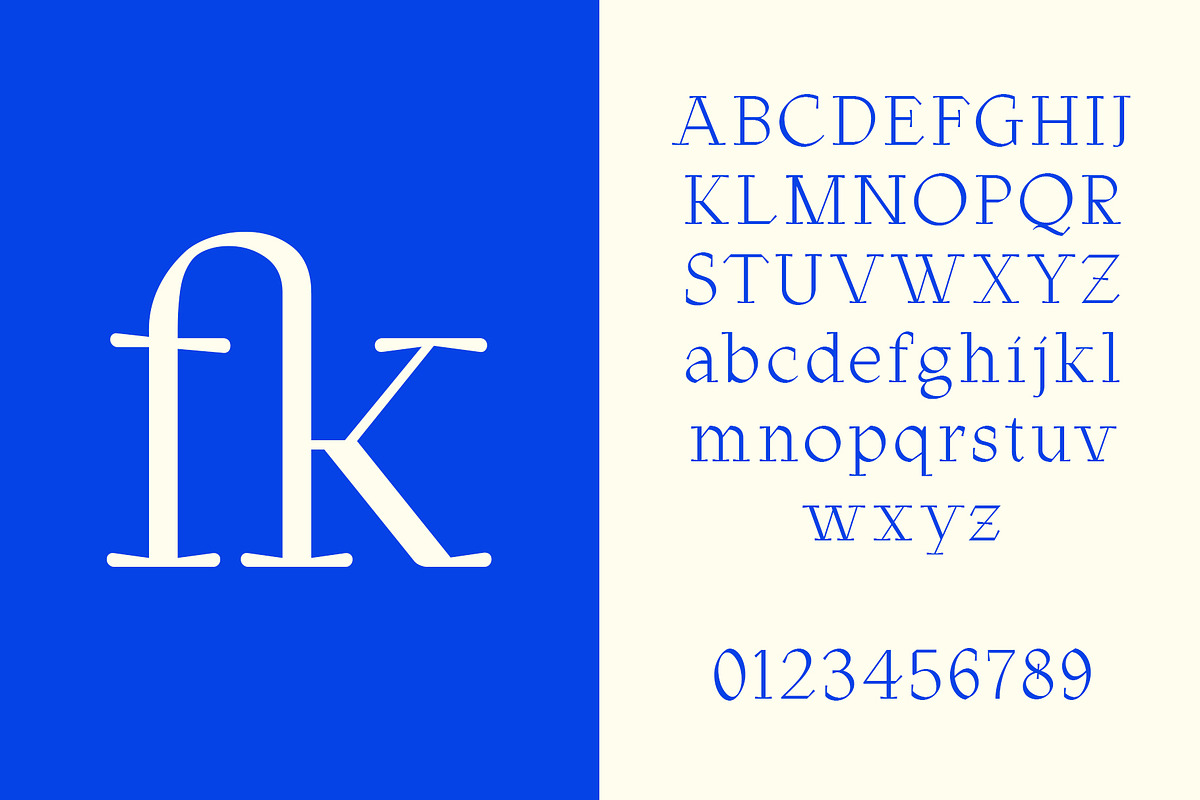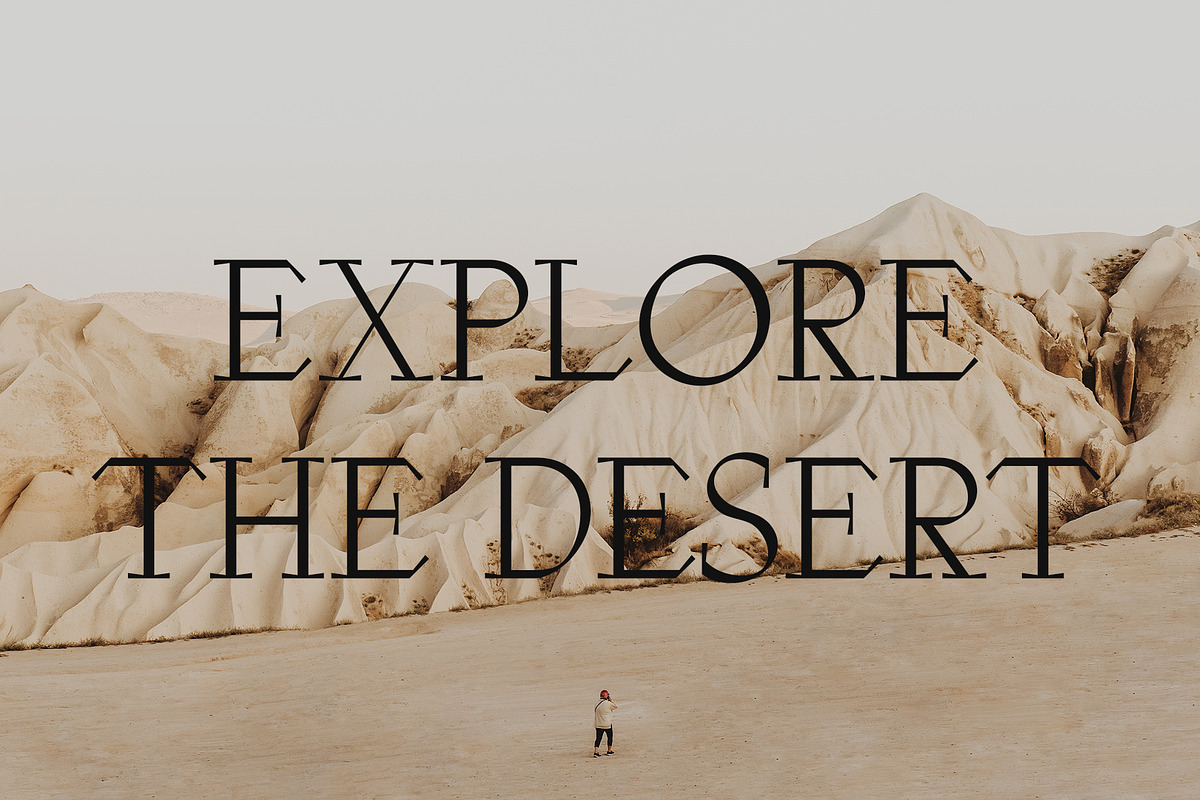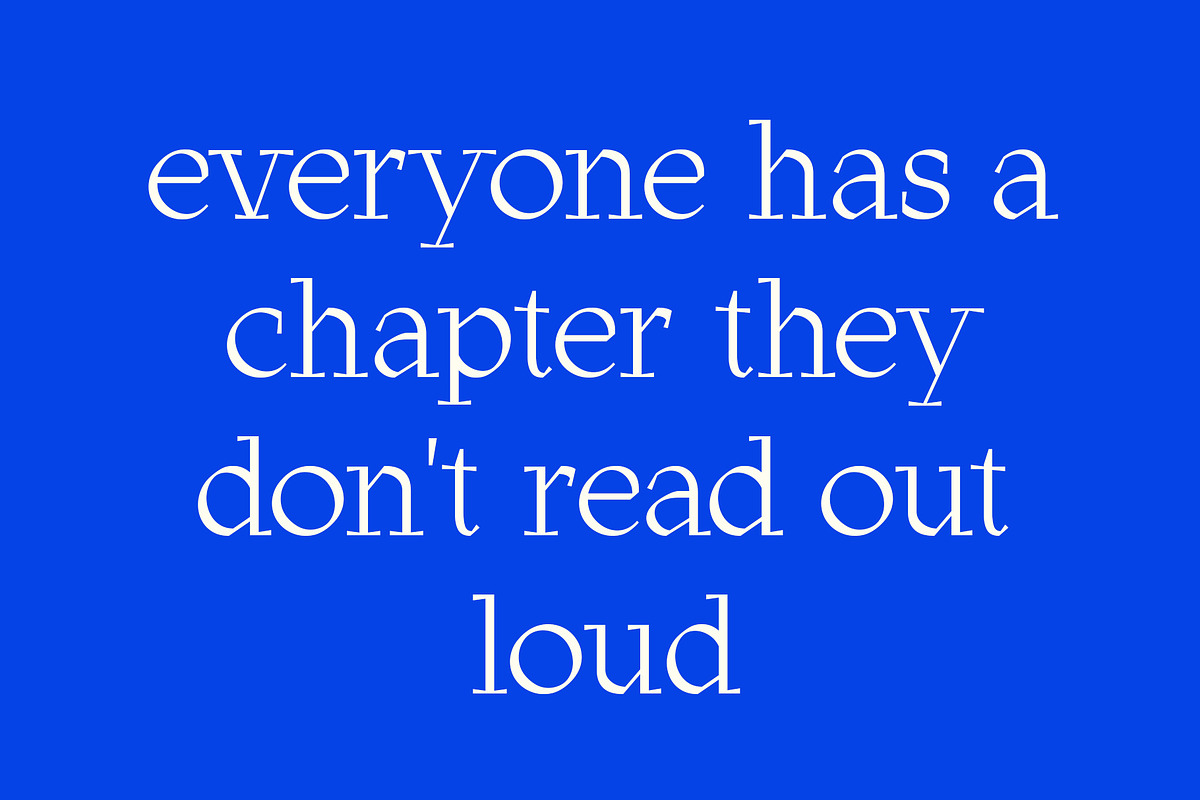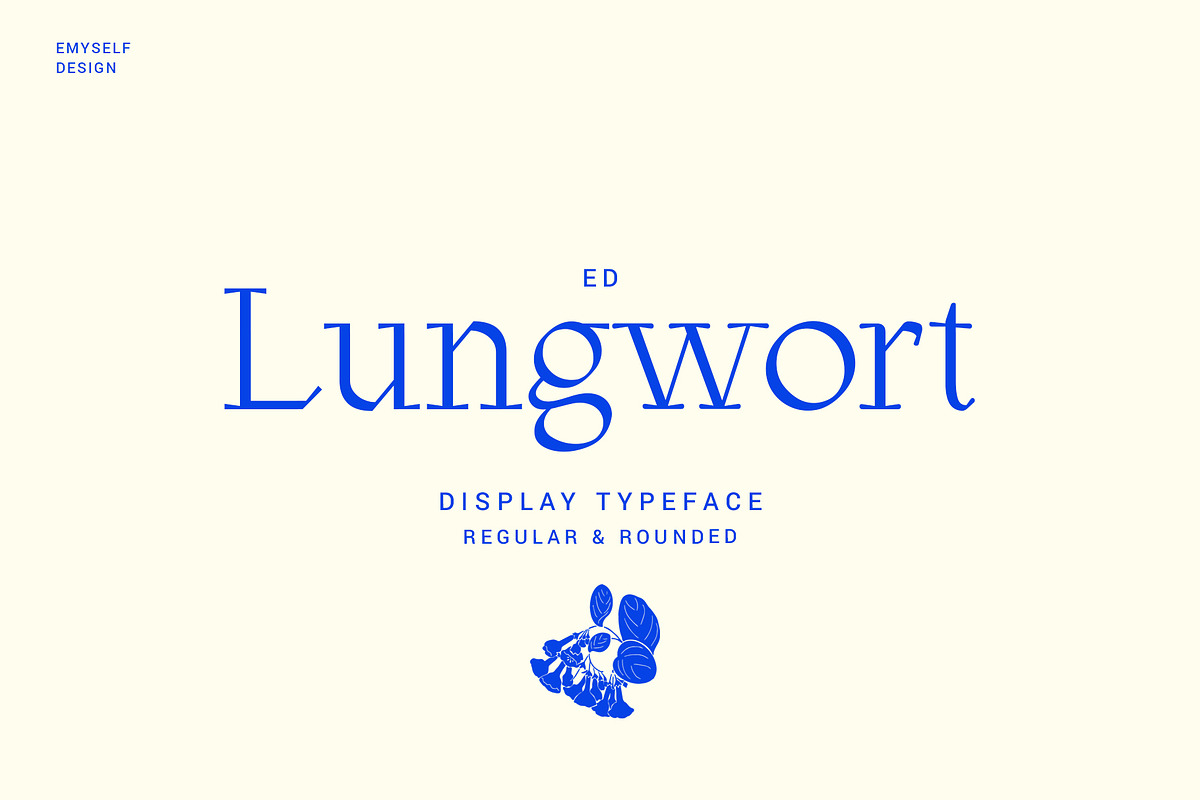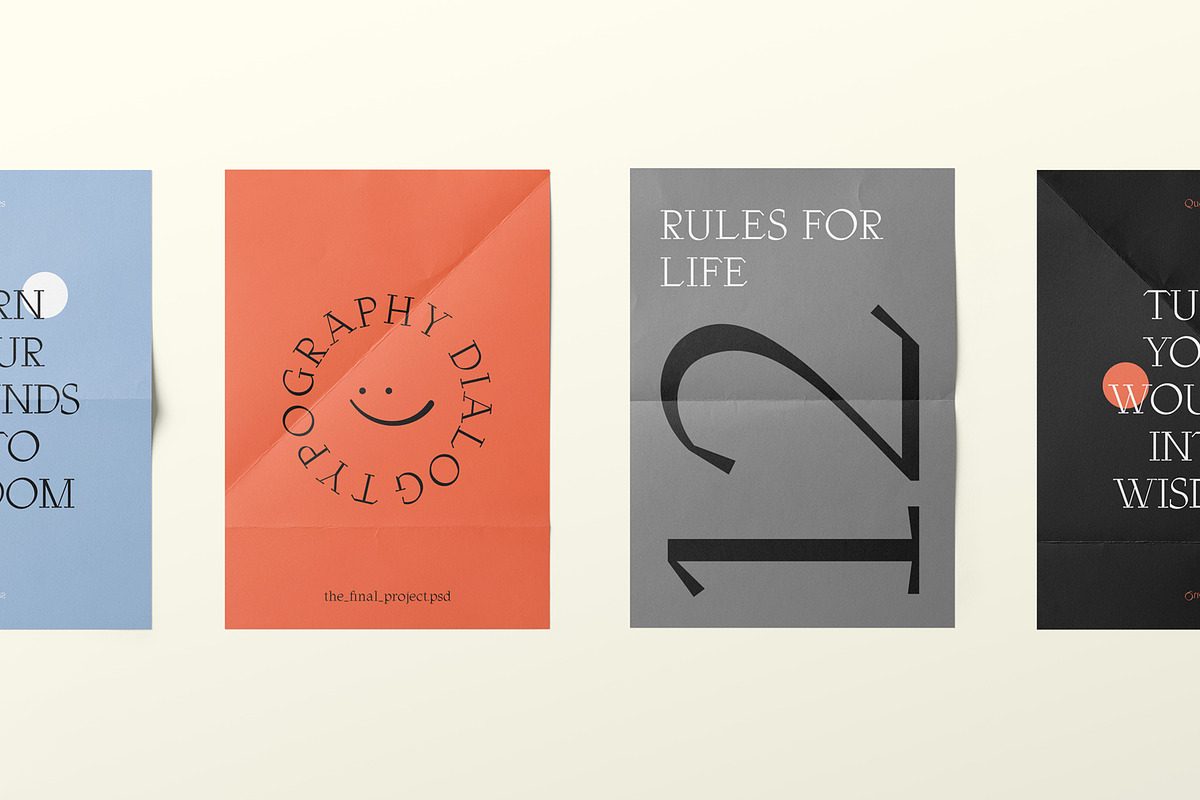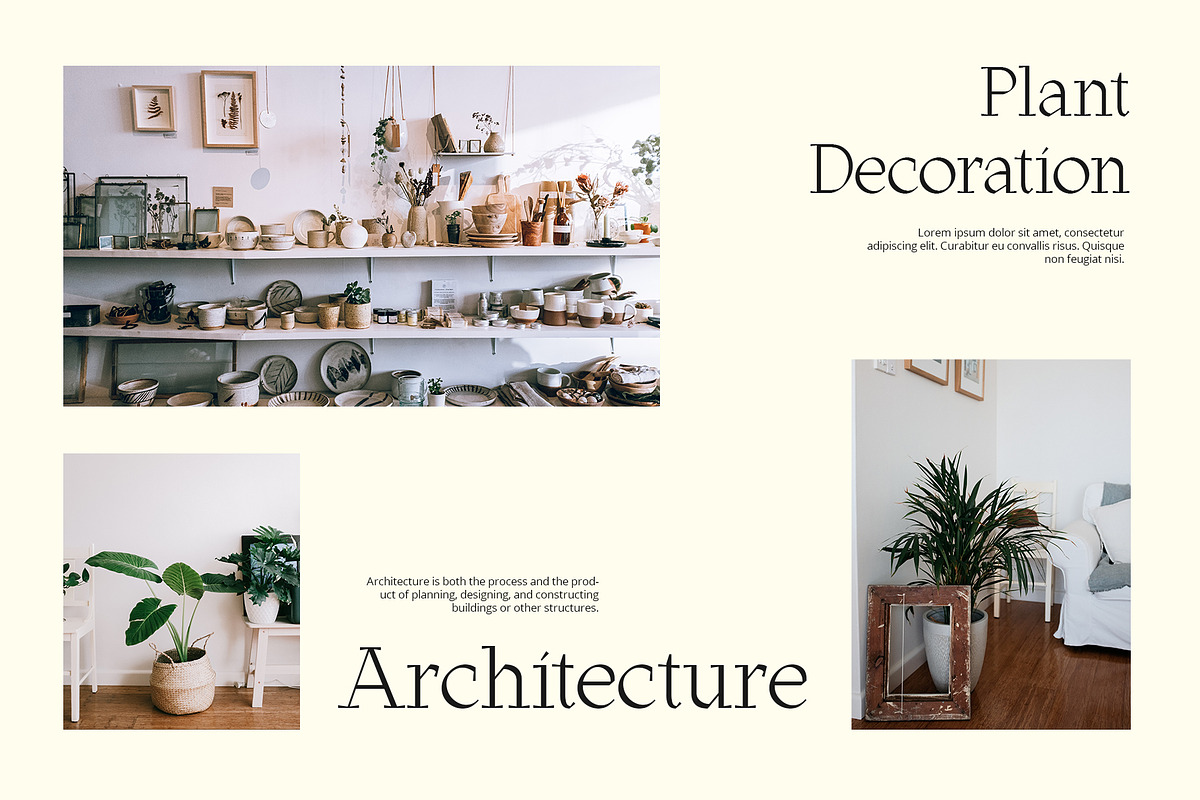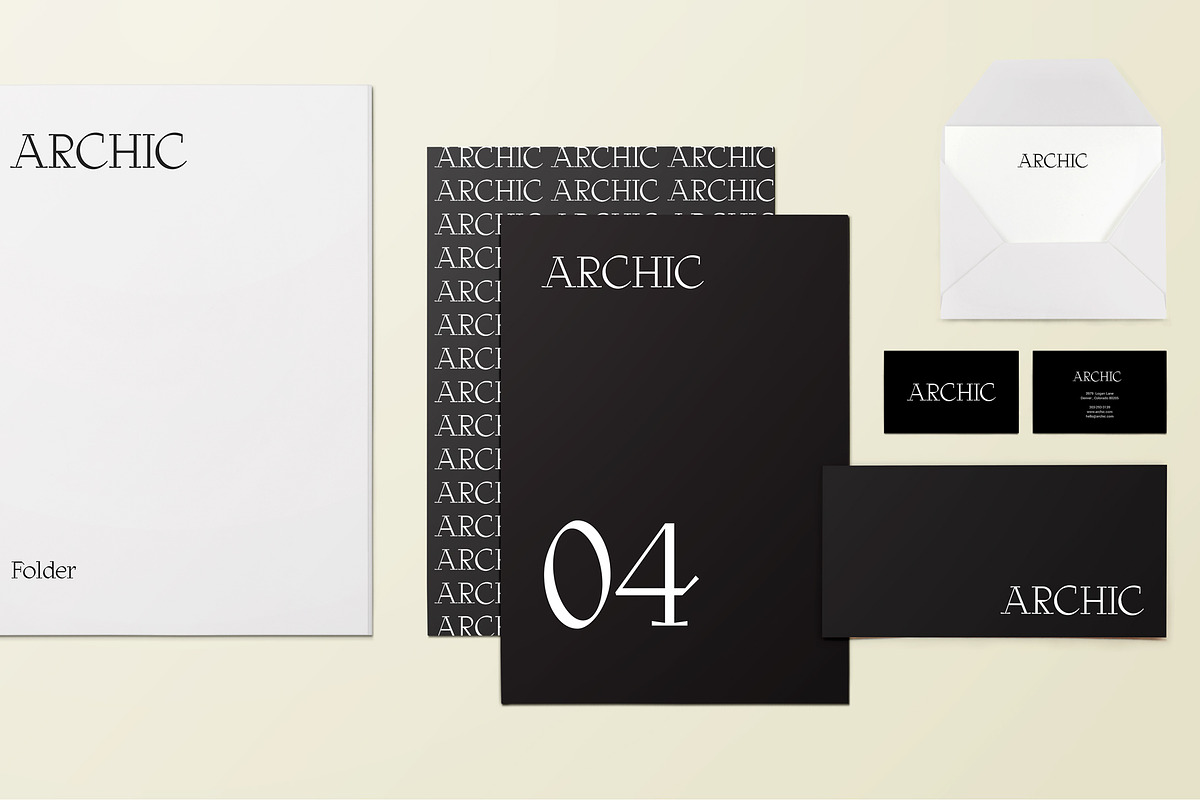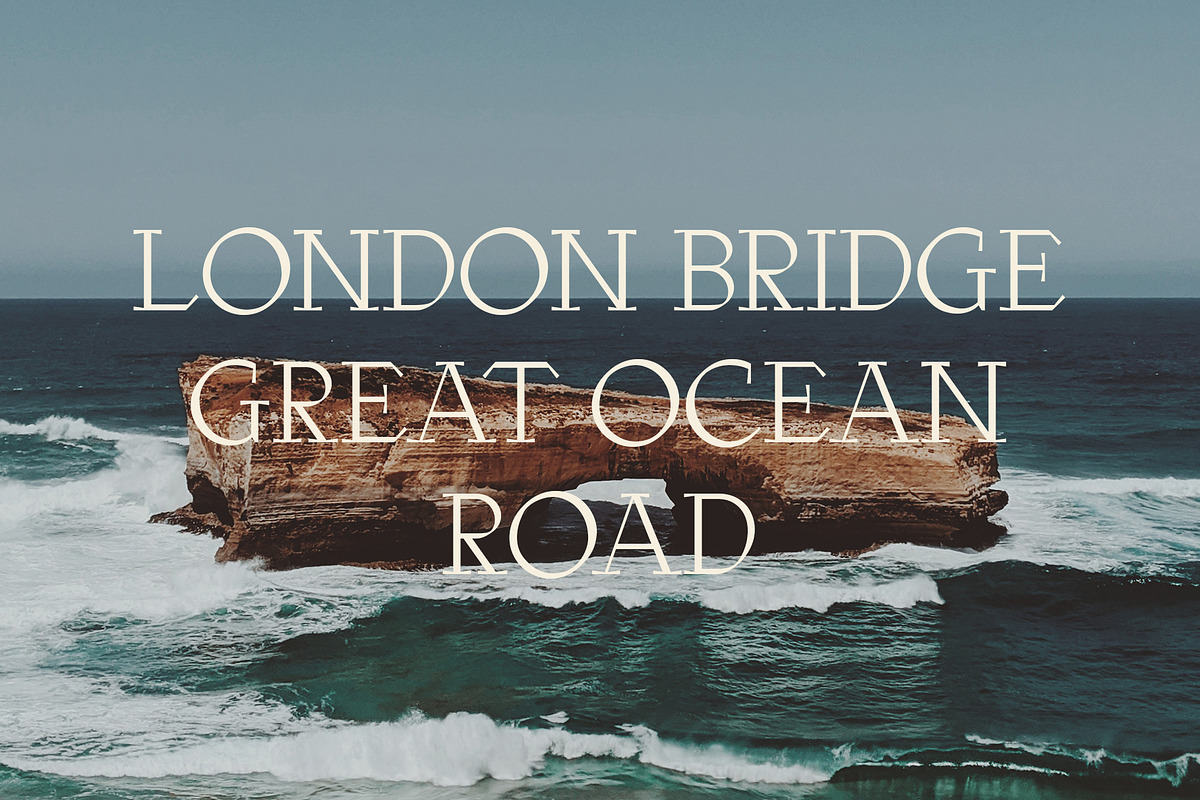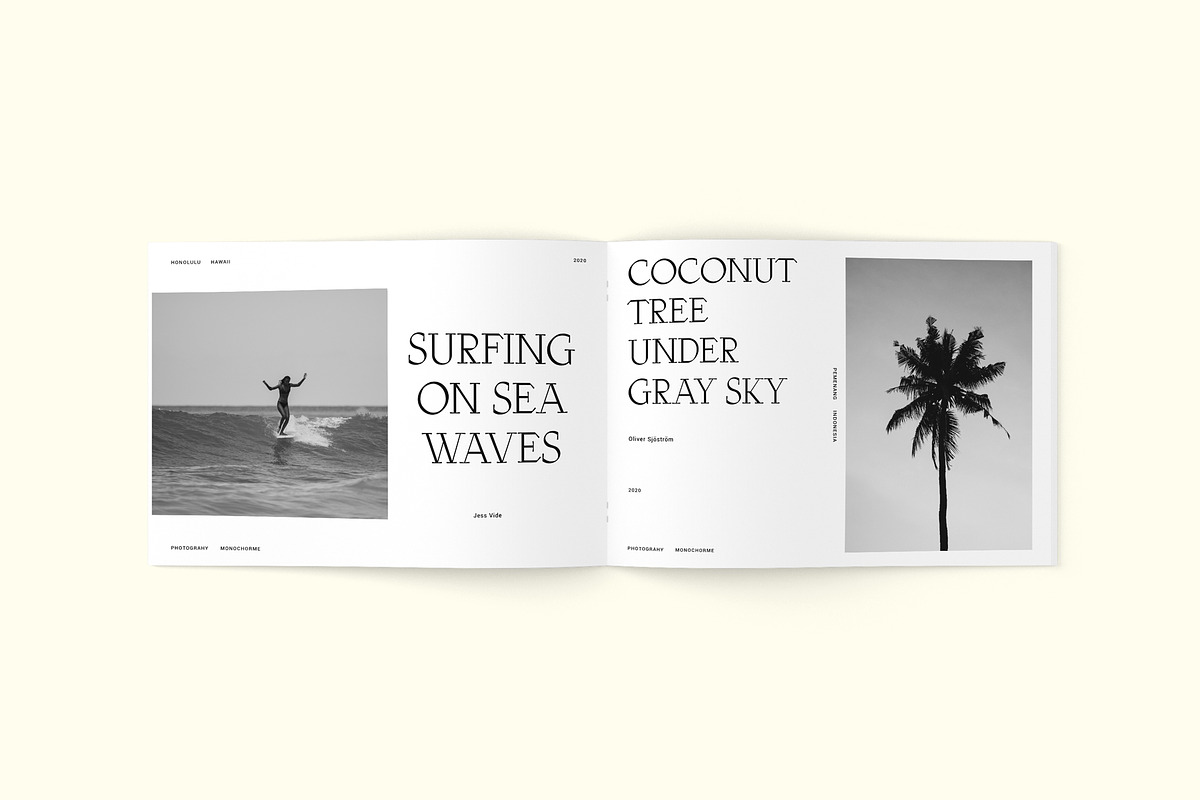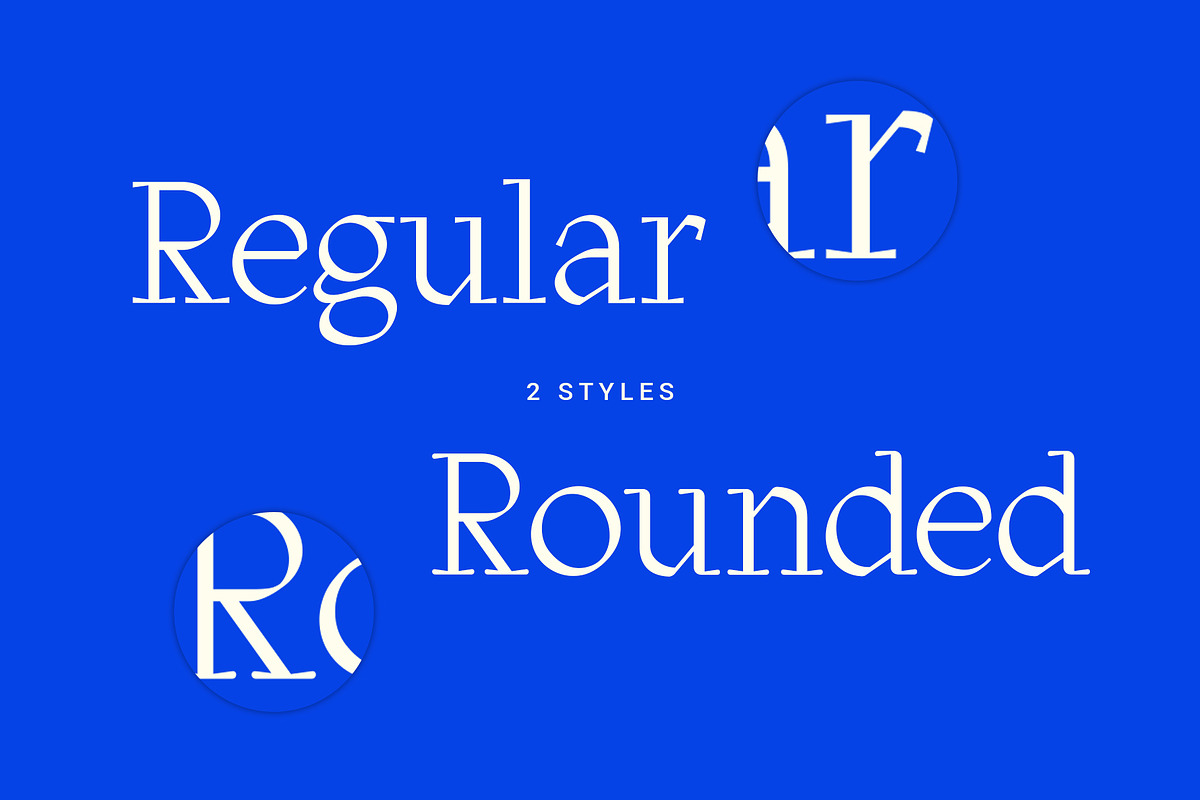
ED Lungwort
ED Lungwort is an modern elegant and classy display font, this font has 2 styles : regular and rounded. This font is inspired by the classic and modern serif style that is designed to create beautiful fonts.
This font is equipped with various features such as uppercase, lowercase, punctuation, symbol, multi-language support, and ligature. This font is suitable for branding, logos, cards, UI, apparel, posters, magazines, etc.